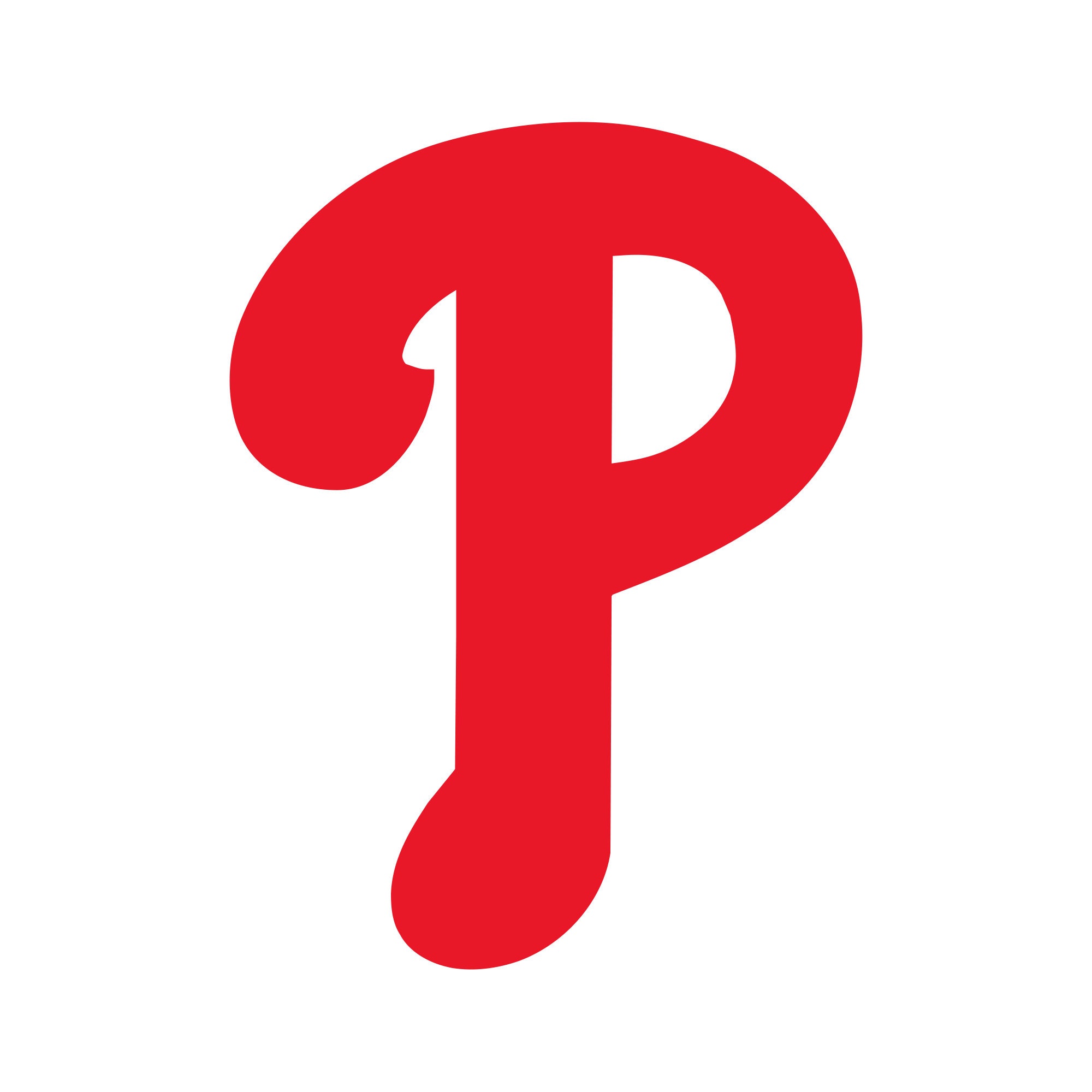
Philadelphia Phillies Font
Philadelphia Phillies Font - Web this cool display font was designed and used for the logo of a baseball club of the same name, the philadelphia phillies baseball club with many proud achievements in the us professional. Below, we are showing the logos and similar fonts. Mlb philadelphia phillies 1980 by twisted gnome productions is a font based on the logo of the major league baseball franchise philadelphia phillies. Try our text generator and create cool graphics for philadelphia phillies font, then you can save the font image to your pc, mac,. Web philadelphia phillies font generator & download is available free at fontbolt. Phillies logo from 1900 to. Mlb philadelphia phillies 1980 is a great font that was designed by twisted gnome productions. Web the philadelphia phillies have had several logos throughout their history and have also gone through several rebranding’s over the years. It is a free font. By dafont october 13, 2021.
Mlb philadelphia phillies 1980 by twisted gnome productions is a font based on the logo of the major league baseball franchise philadelphia phillies. Web philadelphia phillies font. Phillies logo from 1900 to. Web philadelphia phillies font generator & download is available free at fontbolt. Try our text generator and create cool graphics for philadelphia phillies font, then you can save the font image to your pc, mac,. Mlb philadelphia phillies 1980 is a great font that was designed by twisted gnome productions. It was made for logo of the major league. By dafont october 13, 2021. Below, we are showing the logos and similar fonts. It is a free font.
Web the philadelphia phillies have had several logos throughout their history and have also gone through several rebranding’s over the years. It is a free font. Web philadelphia phillies font generator & download is available free at fontbolt. Web philadelphia phillies font. By dafont october 13, 2021. It was made for logo of the major league. Web this cool display font was designed and used for the logo of a baseball club of the same name, the philadelphia phillies baseball club with many proud achievements in the us professional. Try our text generator and create cool graphics for philadelphia phillies font, then you can save the font image to your pc, mac,. Below, we are showing the logos and similar fonts. Mlb philadelphia phillies 1980 is a great font that was designed by twisted gnome productions.
Web philadelphia phillies font generator & download is available free at fontbolt. It is a free font. Web this cool display font was designed and used for the logo of a baseball club of the same name, the philadelphia phillies baseball club with many proud achievements in the us professional. Web the philadelphia phillies have had several logos throughout their.
Below, we are showing the logos and similar fonts. Try our text generator and create cool graphics for philadelphia phillies font, then you can save the font image to your pc, mac,. Mlb philadelphia phillies 1980 is a great font that was designed by twisted gnome productions. Web this cool display font was designed and used for the logo of.
Below, we are showing the logos and similar fonts. Web this cool display font was designed and used for the logo of a baseball club of the same name, the philadelphia phillies baseball club with many proud achievements in the us professional. Mlb philadelphia phillies 1980 by twisted gnome productions is a font based on the logo of the major.
Below, we are showing the logos and similar fonts. By dafont october 13, 2021. Phillies logo from 1900 to. It is a free font. Web the philadelphia phillies have had several logos throughout their history and have also gone through several rebranding’s over the years.
Mlb philadelphia phillies 1980 is a great font that was designed by twisted gnome productions. Phillies logo from 1900 to. Web the philadelphia phillies have had several logos throughout their history and have also gone through several rebranding’s over the years. Below, we are showing the logos and similar fonts. By dafont october 13, 2021.
By dafont october 13, 2021. Mlb philadelphia phillies 1980 is a great font that was designed by twisted gnome productions. Mlb philadelphia phillies 1980 by twisted gnome productions is a font based on the logo of the major league baseball franchise philadelphia phillies. Web philadelphia phillies font. Try our text generator and create cool graphics for philadelphia phillies font, then.
Web philadelphia phillies font. Phillies logo from 1900 to. Mlb philadelphia phillies 1980 by twisted gnome productions is a font based on the logo of the major league baseball franchise philadelphia phillies. By dafont october 13, 2021. Try our text generator and create cool graphics for philadelphia phillies font, then you can save the font image to your pc, mac,.
Below, we are showing the logos and similar fonts. By dafont october 13, 2021. It is a free font. Web the philadelphia phillies have had several logos throughout their history and have also gone through several rebranding’s over the years. Web philadelphia phillies font generator & download is available free at fontbolt.
Mlb philadelphia phillies 1980 is a great font that was designed by twisted gnome productions.